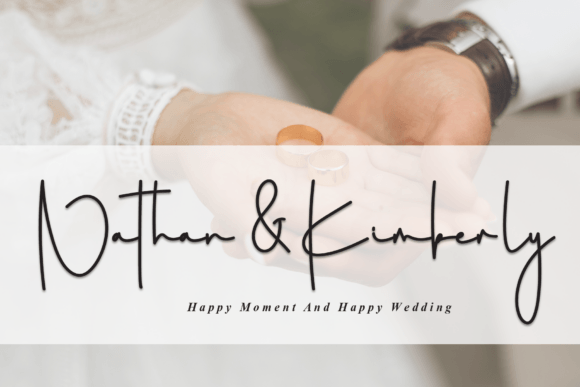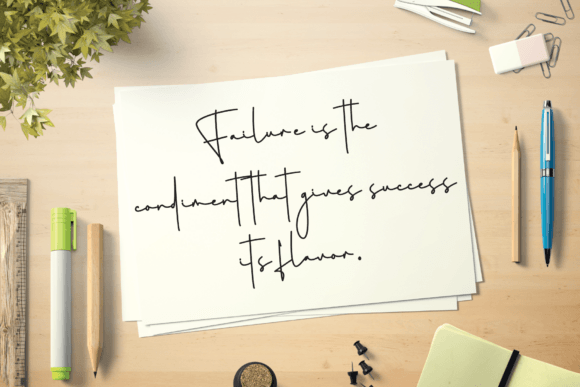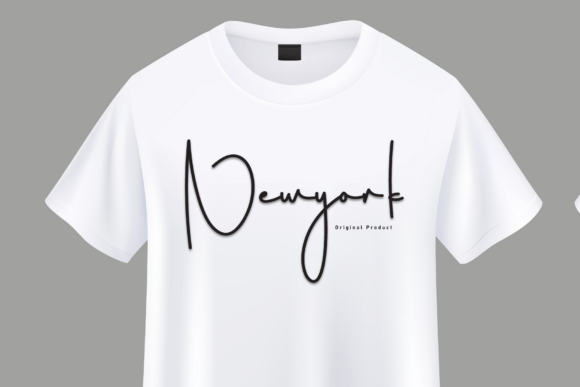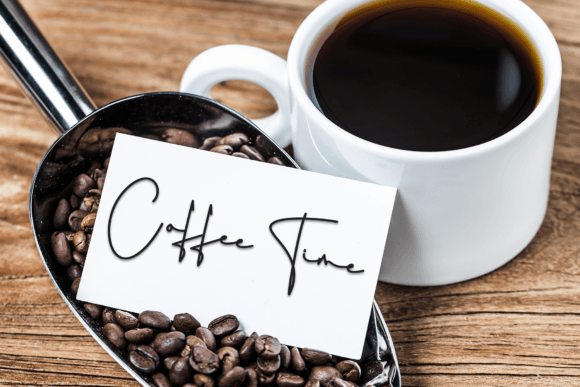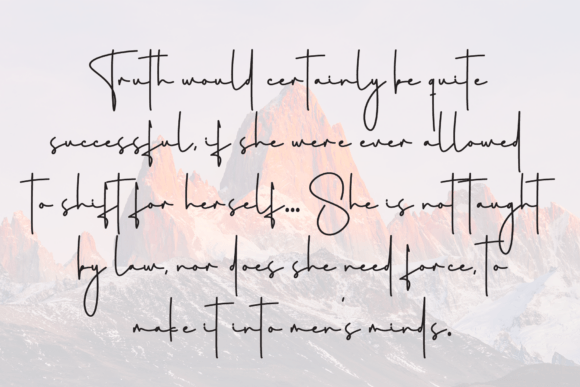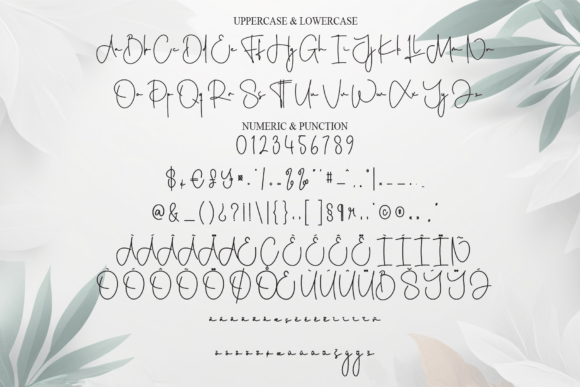
Introduction to Kayla Script Font
Kayla Script is a smooth, flowing handwriting font that looks like elegant cursive.
Its letters connect naturally, making it perfect for adding a personal and stylish touch to designs like invitations, greeting cards, or logos .